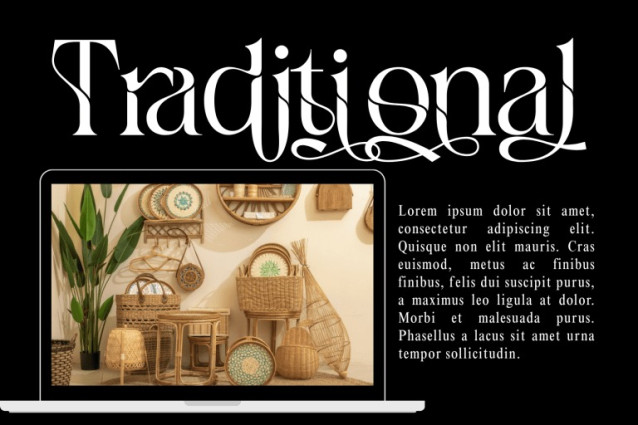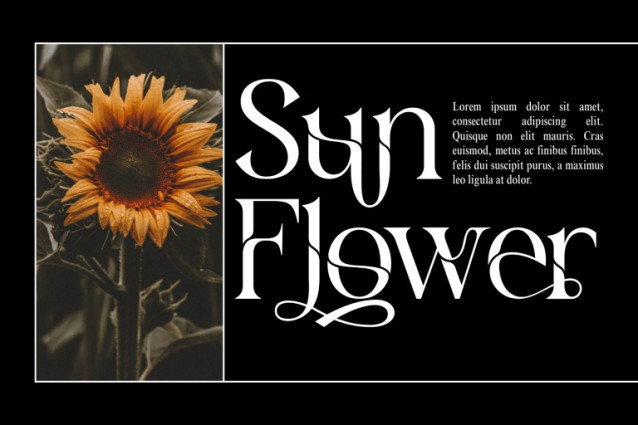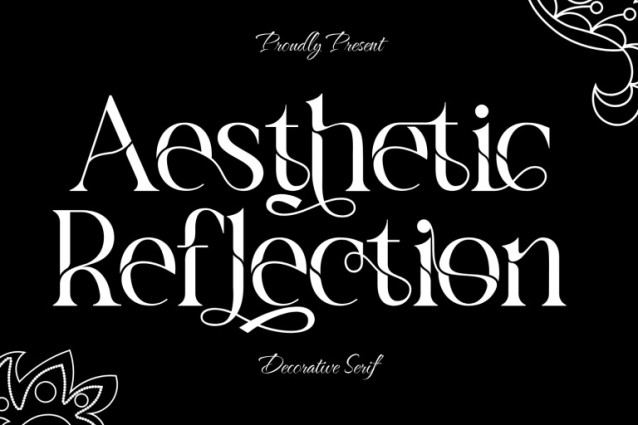
Aesthetic Reflection Font
Aesthetic Reflection Elegant Font – Elegant High-Contrast Serif Display Font, a refined high-contrast serif display font crafted with graceful curves, sharp serifs, and expressive decorative swashes. Each letterform blends classic serif elegance with modern artistic twists, featuring fluid loops, smooth terminals, and sculpted contrasts that create a luxurious, visually captivating rhythm. The font carries a sophisticated editorial feel—perfect for designers seeking both refinement and creativity in their typography. Aesthetic Reflection is ideal for branding, fashion magazines, packaging, invitations, posters, logos, and any design project that requires an elevated and aesthetically striking typographic presence.
🔤Features:
Uppercase & Lowercase Letters
Around 100 Special Ligatures & Stylistic Alternates
Accented Characters for multilingual support
🔤About 100 ligatures combined with Stylistic Alternates Font: